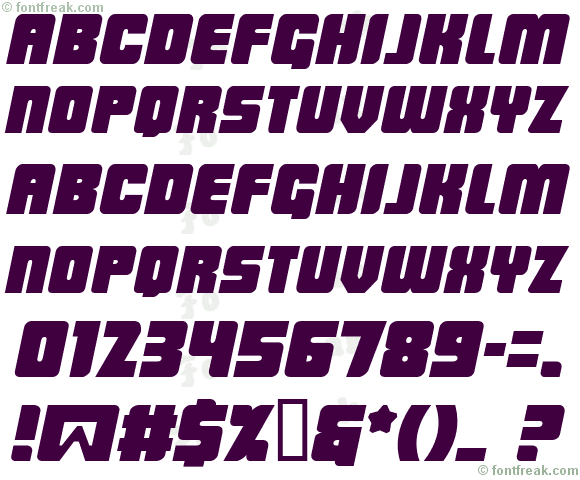
LowRider BB Italic
LowRider BB
The Lowrider font by Blambot Fonts is a striking display typeface that captures the essence of urban culture and automotive aesthetics. Released in 2004 and designed by Nate Piekos, this font features a unique combination of bold strokes and playful curves, making it an eye-catching choice for various design projects. The font exhibits a moderate stroke weight with minimal contrast, providing a consistent visual impact that is both inviting and dynamic. The italicized style adds a sense of motion and energy, making it an excellent choice for designs that aim to convey a sense of speed and excitement.
Lowrider's decorative elements include exaggerated curves and stylized forms that evoke the spirit of classic lowrider car culture. The spacing is well-balanced, ensuring that each letter stands out while maintaining readability. This font is particularly suitable for use cases such as vibrant event flyers, energetic music album covers, bold movie posters, and playful restaurant menus that aim to create a memorable dining experience. It appeals to a diverse target audience, including graphic designers looking for unique typefaces, small business owners wanting to make their branding pop, and content creators seeking to add a distinctive flair to their projects.
What sets Lowrider apart is its ability to blend nostalgia with contemporary design, making it versatile for both retro and modern applications. Its free availability as freeware makes the Lowrider font free download a fantastic opportunity for creatives who want to enhance their projects with a distinctive and culturally rich typeface. Whether you're designing for print or digital mediums, this font will undoubtedly add a vibrant touch that resonates with audiences and leaves a lasting impression.